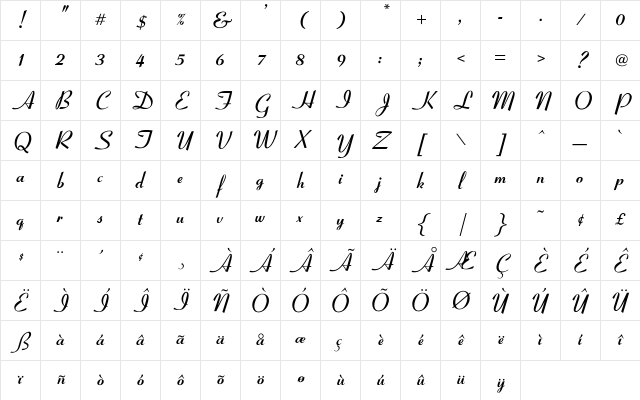
Complete OPTICoyonetBold Regular glyph index. Displaying only characters natively supported by OPTICoyonetBold Regular font.
OPTICoyonetBold is a composed and adaptable typeface that performs quietly and consistently across a wide range of design contexts. Its bold stroke weight gives it real presence on the page.